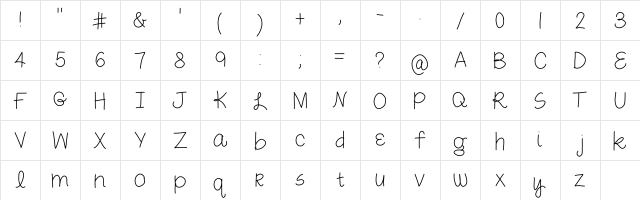
midnight snacks Medium
Design Context for midnight snacks
midnight snacks is a composed and adaptable typeface that performs quietly and consistently across a wide range of design contexts.